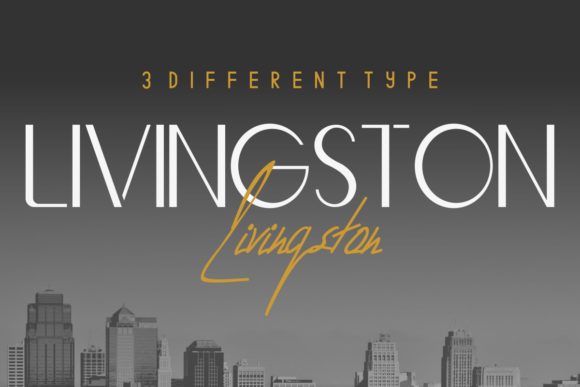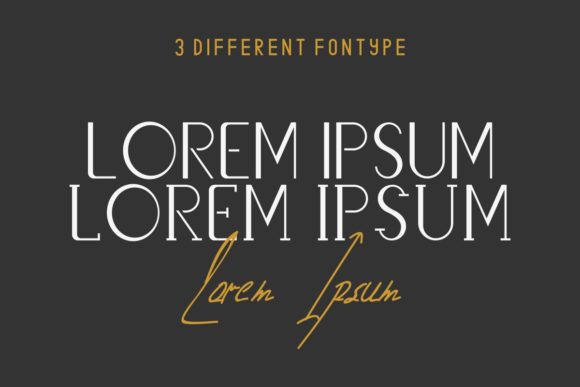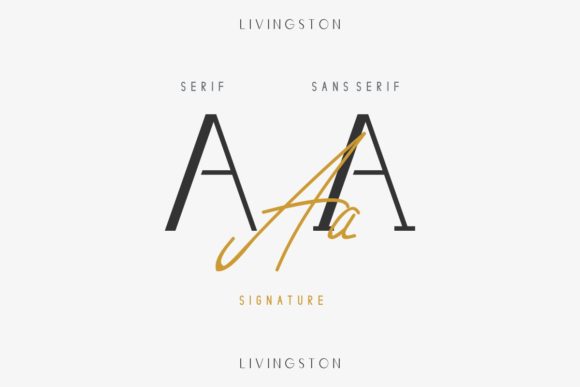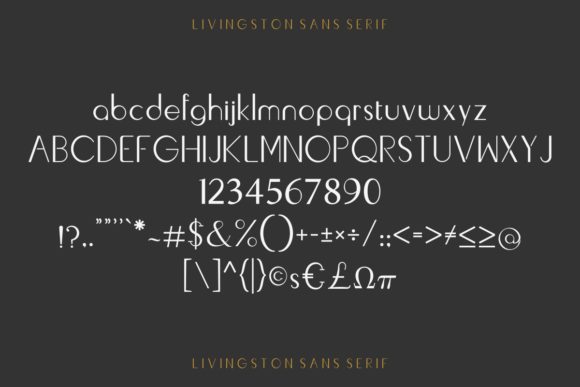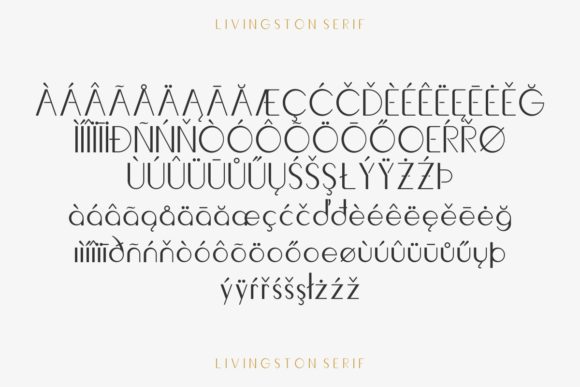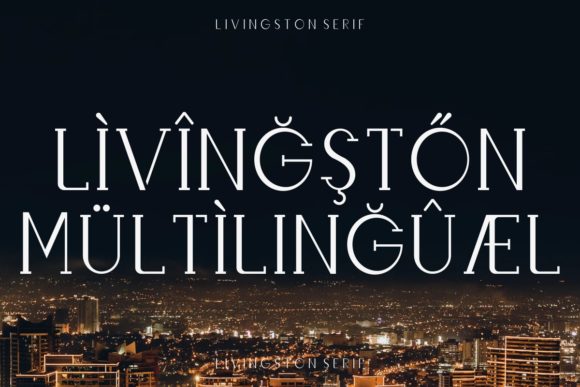
Introduction to Livingston Font
Have you ever found yourself staring at a blank canvas, desperately searching for the perfect font to bring your design to life? The frustration is real, but what if I told you there’s a solution that can turn that blank slate into a masterpiece? Welcome to the world of Livingston Font, a stunning trio of serif, sans, and script fonts that will take your creative projects to the next level.
As a designer, you know how crucial it is to have a high-quality design resource at your fingertips. The Livingston Font trio offers just that – a free download that’s perfect for any creative project. With its transparent background and versatile style, you can experiment with different combinations to achieve a truly unique look. Whether you’re working on a logo, brochure, or website, the Livingston Font is sure to elevate your design and leave a lasting impression.
Whether you’re a seasoned pro or just starting out, the Livingston Font is an invaluable addition to your design arsenal. So why wait? Dive into the world of Livingston Font and discover a new level of creative freedom.
Key Features of Livingston Font
- High-quality design resource ideal for creative projects and digital art
- Unique transparent background design allows for seamless integration with any design
- Perfect for graphic designers, digital artists, and anyone looking for a stylish font
- Supports a wide range of languages and characters, making it a versatile design resource
Honest Review: Livingston Font
I recently stumbled upon the Livingston Font and I must say it’s a great addition to any design resource collection. The font is free to download, which is always a plus, and it offers a lot of flexibility for creative projects.
- ✨ The high quality of the font is immediately noticeable, with crisp and clean lines that make it perfect for headings and titles.
- ✨ The font is highly customizable, with a range of weights and styles to choose from, making it suitable for a variety of design applications.
- ✨ The transparent background option is a nice touch, allowing designers to easily blend the font with any background.
- ⚠️ The font may not be suitable for very small text sizes, as the letters can become slightly distorted.
Overall, I’m impressed with the Livingston Font and would definitely recommend it to designers looking for a high-quality, free font to add to their design resource collection.
Livingston Font
The Livingston Font is perfect for:
- Social media graphics and advertisements
- Event posters and flyers